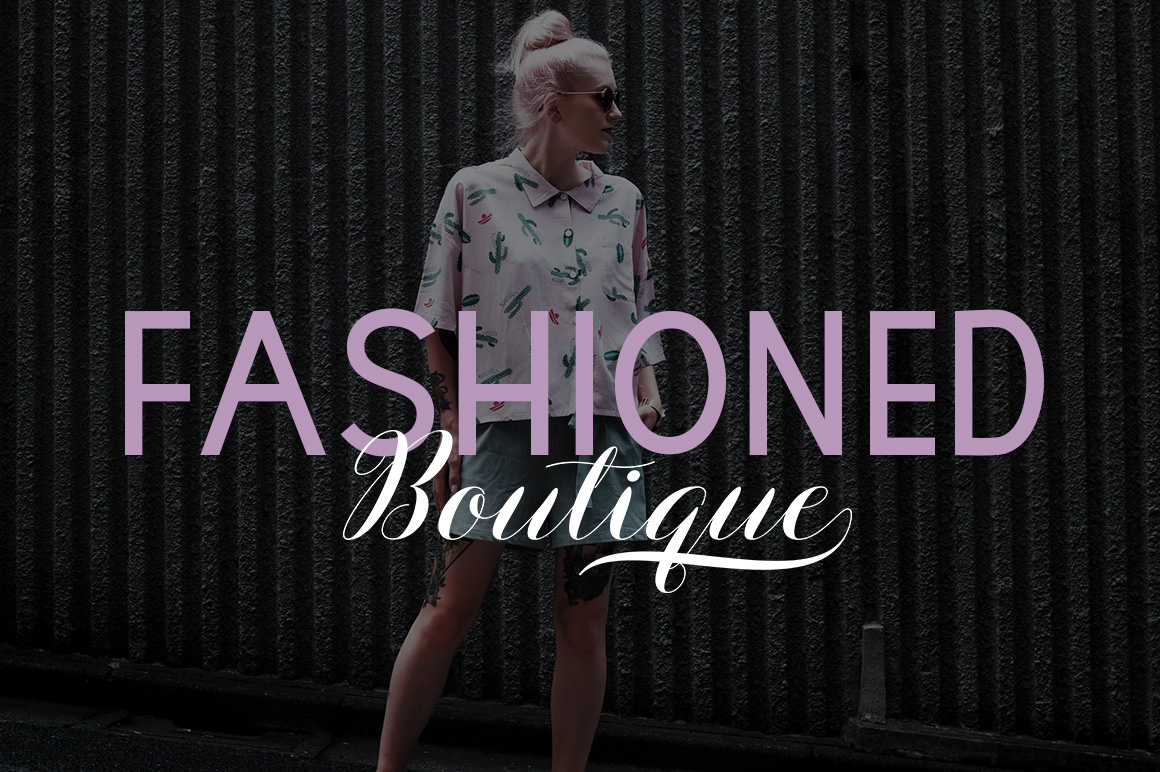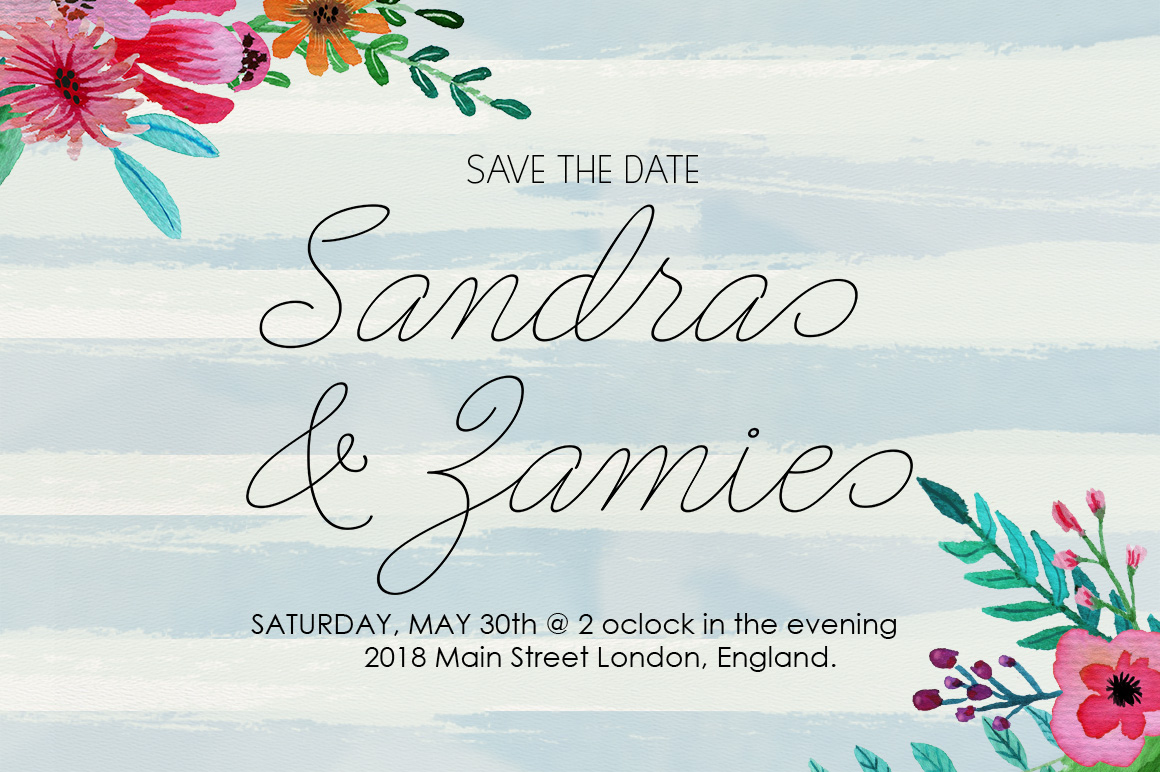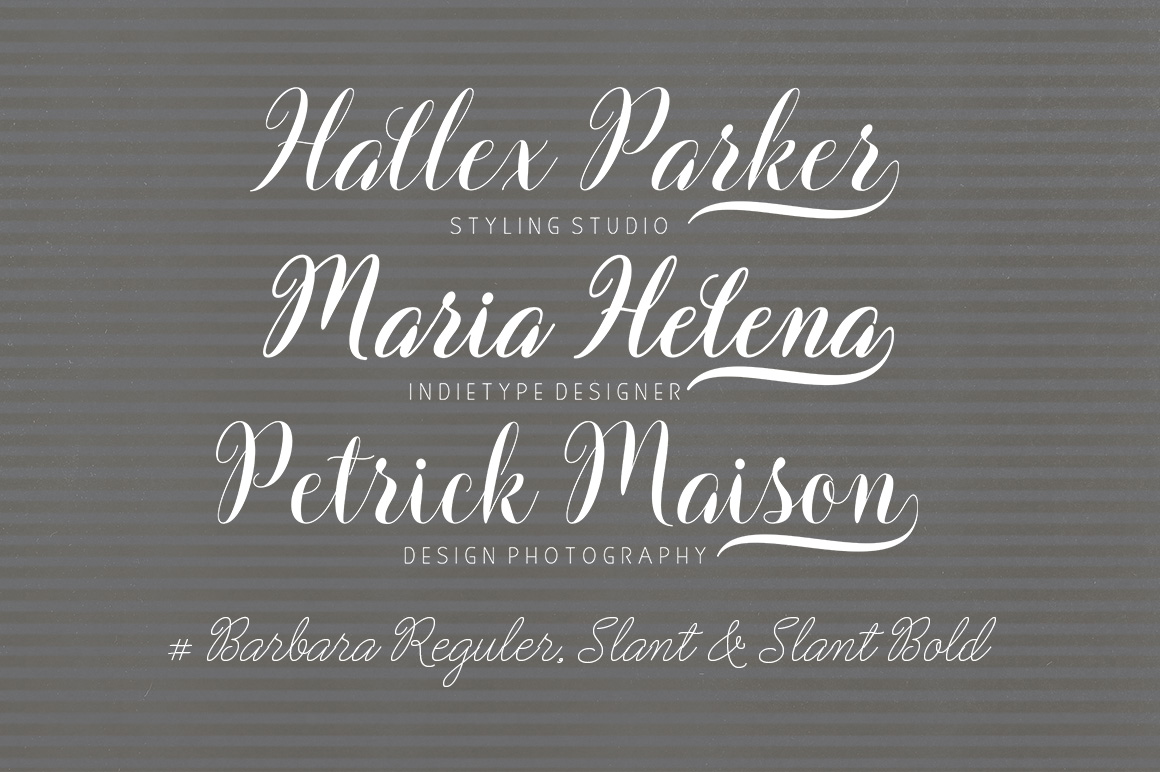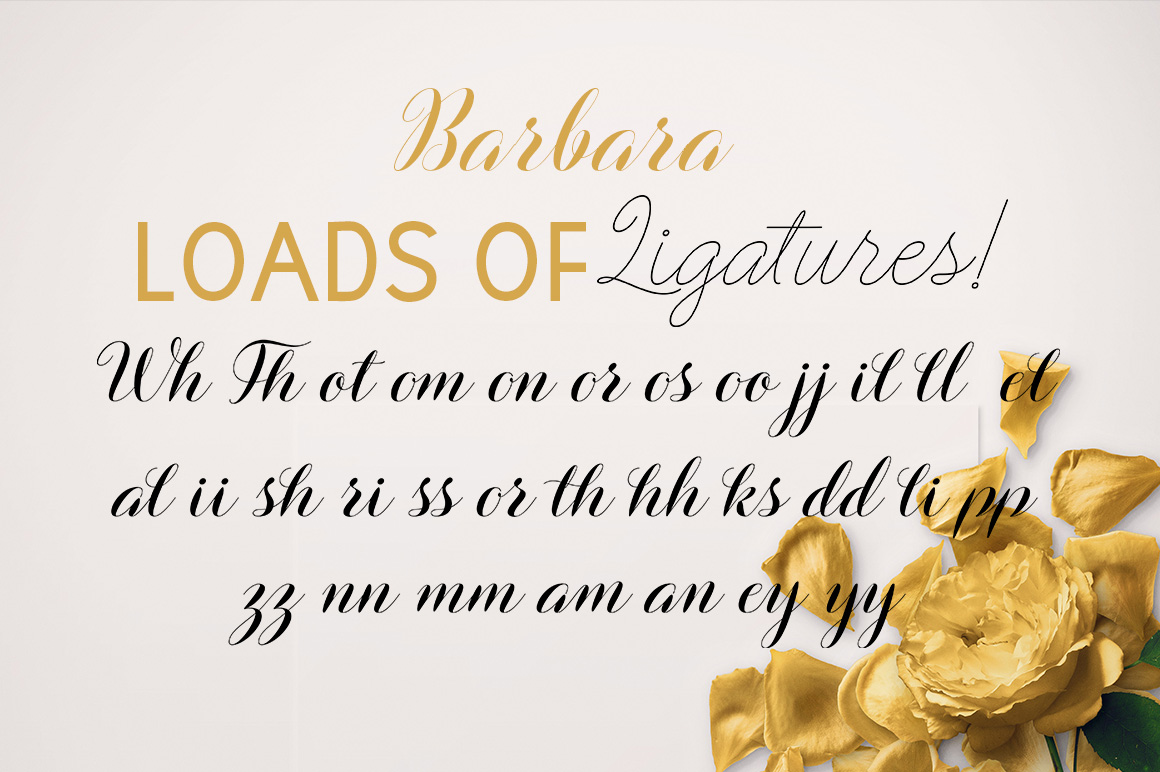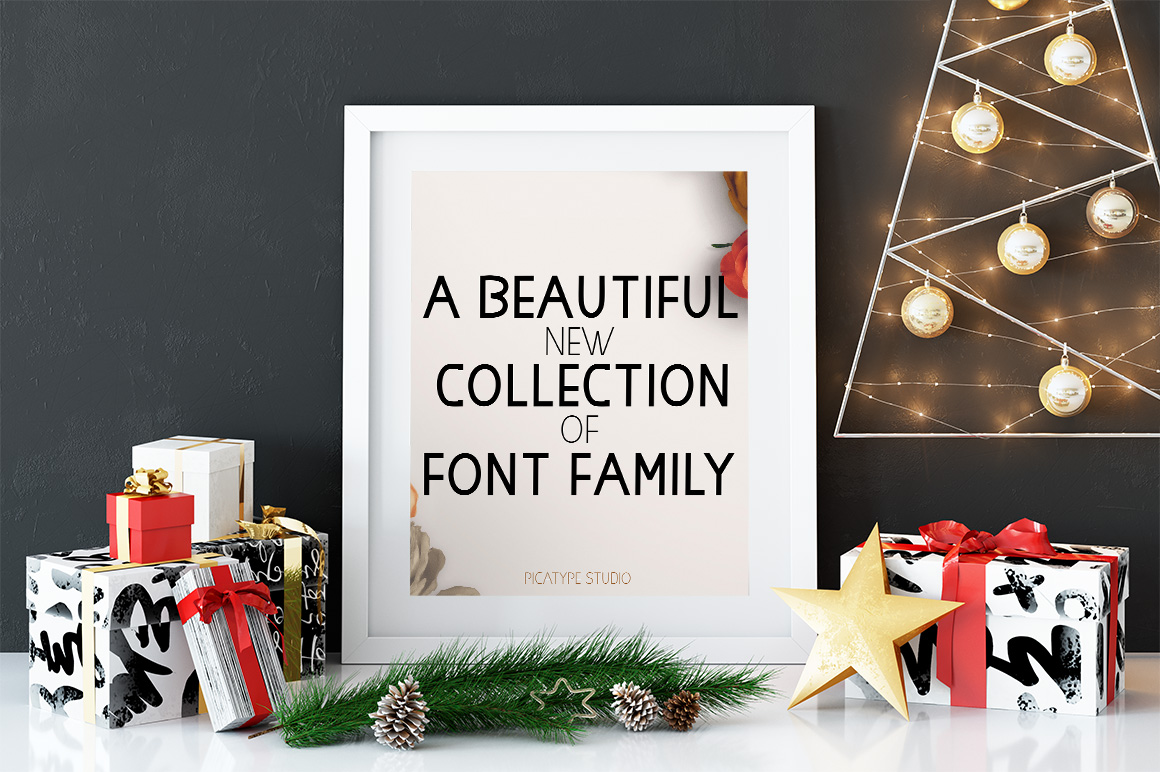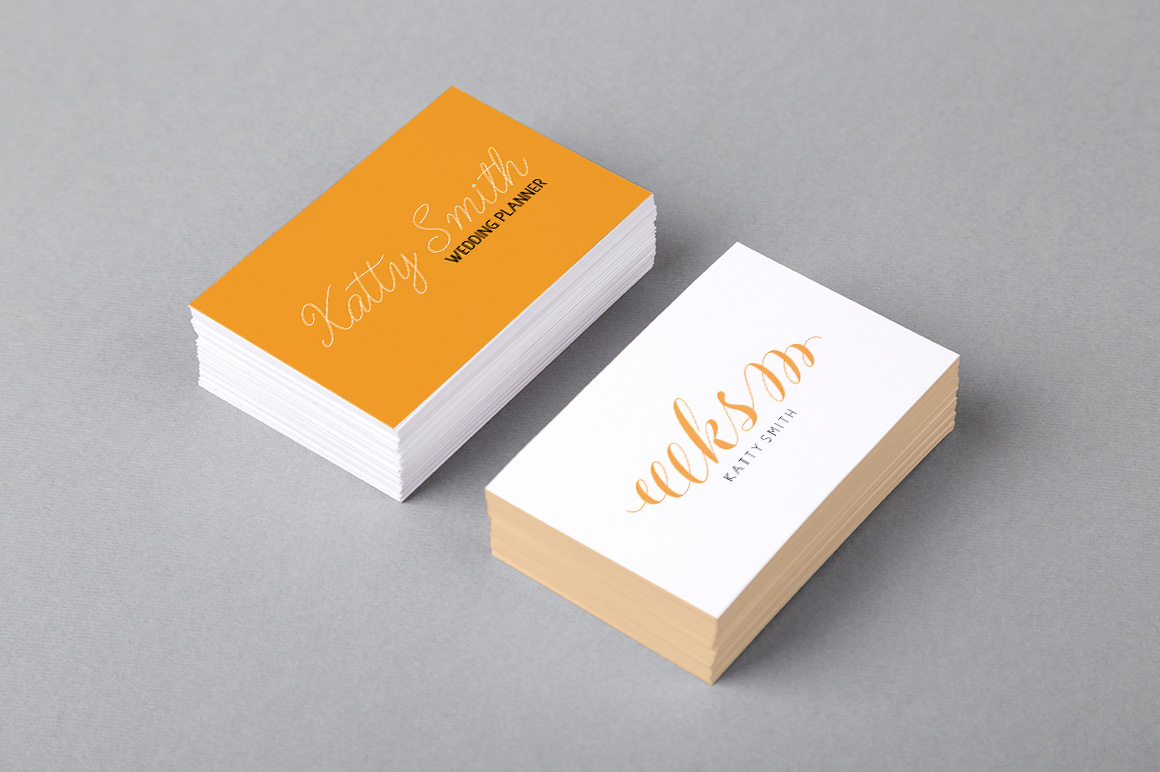
Discover the Beauty of Barbara Font: A Comprehensive Guide
Are you a designer or crafter looking for a versatile and stunning font family to elevate your creative projects? Look no further than Barbara Font! This beautiful and fully realized font family is fortified by several style options, making it a complete font set in every sense of the word. In this article, we’ll dive into the world of Barbara Font and explore its features, benefits, and uses.
What is Barbara Font?
Barbara Font is a carefully crafted font family designed to cater to a wide range of designs. With its elegant and refined aesthetic, Barbara Font is perfect for projects that require a touch of sophistication and style. Whether you’re working on a logo, branding, packaging, or editorial design, Barbara Font is an excellent choice.
Key Features of Barbara Font
- Multiple Style Options: Barbara Font offers several style options, allowing you to experiment with different looks and feels to suit your design needs.
- Complete Font Set: With Barbara Font, you get a comprehensive font family that includes various weights, styles, and alternatives.
- Highly Versatile: Barbara Font is suitable for a wide range of designs, from elegant and sophisticated to playful and creative.
- Easy to Read: Barbara Font features clear and legible letterforms, making it perfect for body text, headings, and titles.
Benefits of Using Barbara Font
So, why choose Barbara Font for your design projects? Here are some benefits that make it an excellent choice:
- Consistency: With Barbara Font, you can maintain consistency across your designs by using a single, high-quality font family.
- Flexibility: The multiple style options and weights in Barbara Font allow you to experiment with different looks and feels without having to switch fonts.
- Time-Saving: Barbara Font is a complete font set, saving you time and effort in searching for and pairing different fonts.
- Professional Look: Barbara Font’s elegant and refined aesthetic gives your designs a professional and polished look.
Uses of Barbara Font
Barbara Font is an incredibly versatile font family that can be used in various design projects, including:
- Logo Design: Create stunning logos with Barbara Font’s elegant and refined letterforms.
- Branding: Establish a strong brand identity with Barbara Font’s consistent and professional look.
- Packaging Design: Elevate your packaging designs with Barbara Font’s sophisticated and eye-catching aesthetic.
- Editorial Design: Use Barbara Font for body text, headings, and titles in your editorial designs, such as magazines, newspapers, and books.
Tips for Using Barbara Font
To get the most out of Barbara Font, here are some tips to keep in mind:
- Experiment with Style Options: Try out different style options and weights to find the perfect look for your design.
- Pair with Other Fonts: Combine Barbara Font with other fonts to create a unique and visually appealing typography.
- Adjust Font Size and Line Height: Adjust the font size and line height to optimize readability and flow.
In conclusion, Barbara Font is a beautiful and versatile font family that offers a wide range of design possibilities. With its elegant and refined aesthetic, multiple style options, and complete font set, Barbara Font is an excellent choice for designers and crafters looking to elevate their creative projects. Whether you’re working on a logo, branding, packaging, or editorial design, Barbara Font is sure to impress.